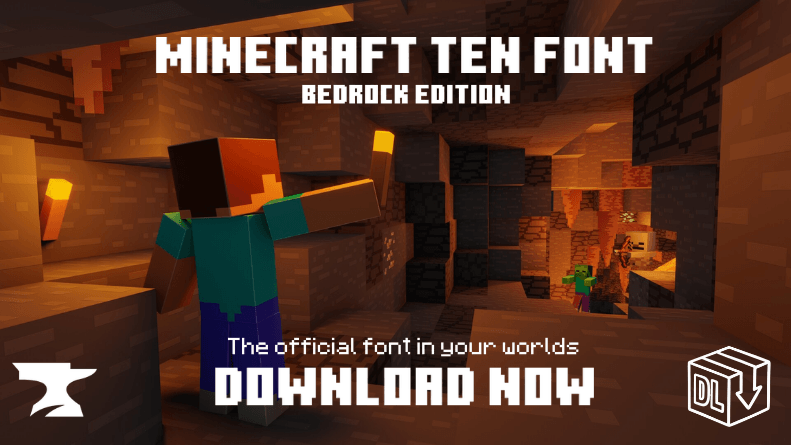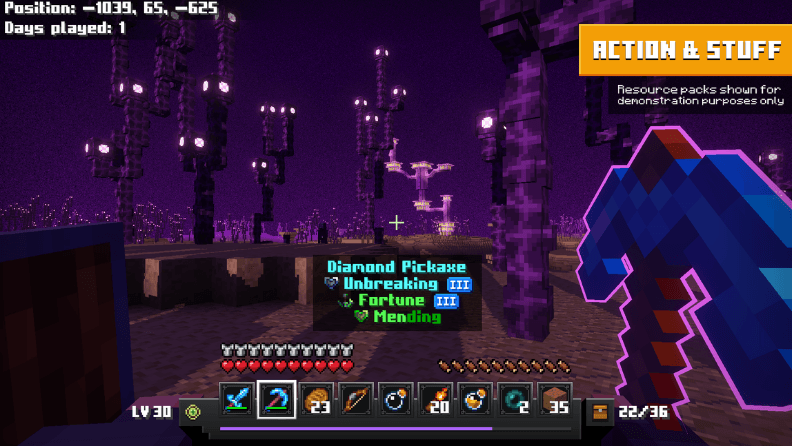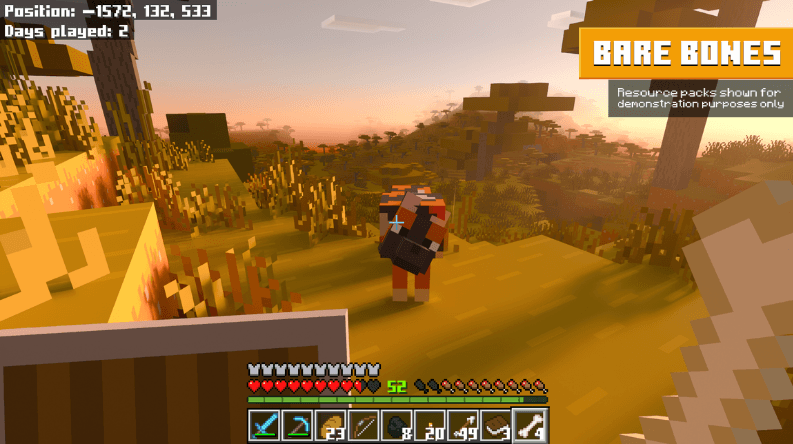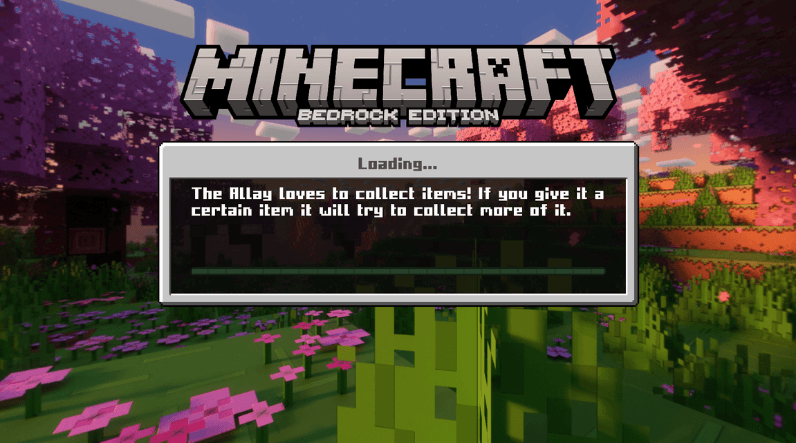
This version improves readability and usability in Minecraft Bedrock while preserving the original pixel-style aesthetic.
- Full Spanish character support (á, é, í, ó, ú)
- Ñ / ñ support
- Ü / ü support
- Inverted punctuation (¿ ¡)
- Clean and readable UI font for Bedrock Edition